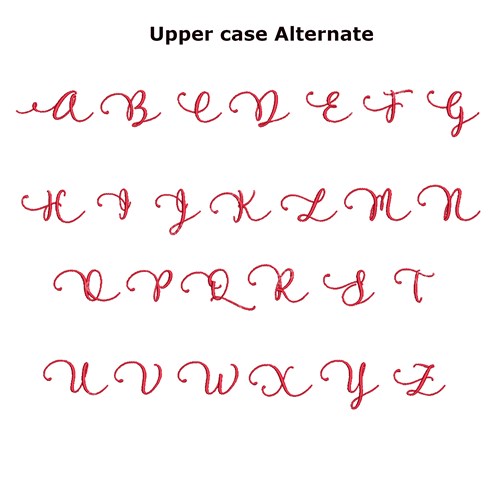
Maya Kreations is happy to present Rose Of Baltimore Alternate Embroidery Font - Flowing Script Handwriting - PES, DST & 6 formats machine embroidery font which has This cursive machine embroidery font is perfect for decorative designs on garments or home textiles. The flowing script with graceful curls comes in rich red and olive-green. Available in DST, PES, and other formats. included. If you would like to view more embroidery fonts and alphabets please search our embroidery fonts page.